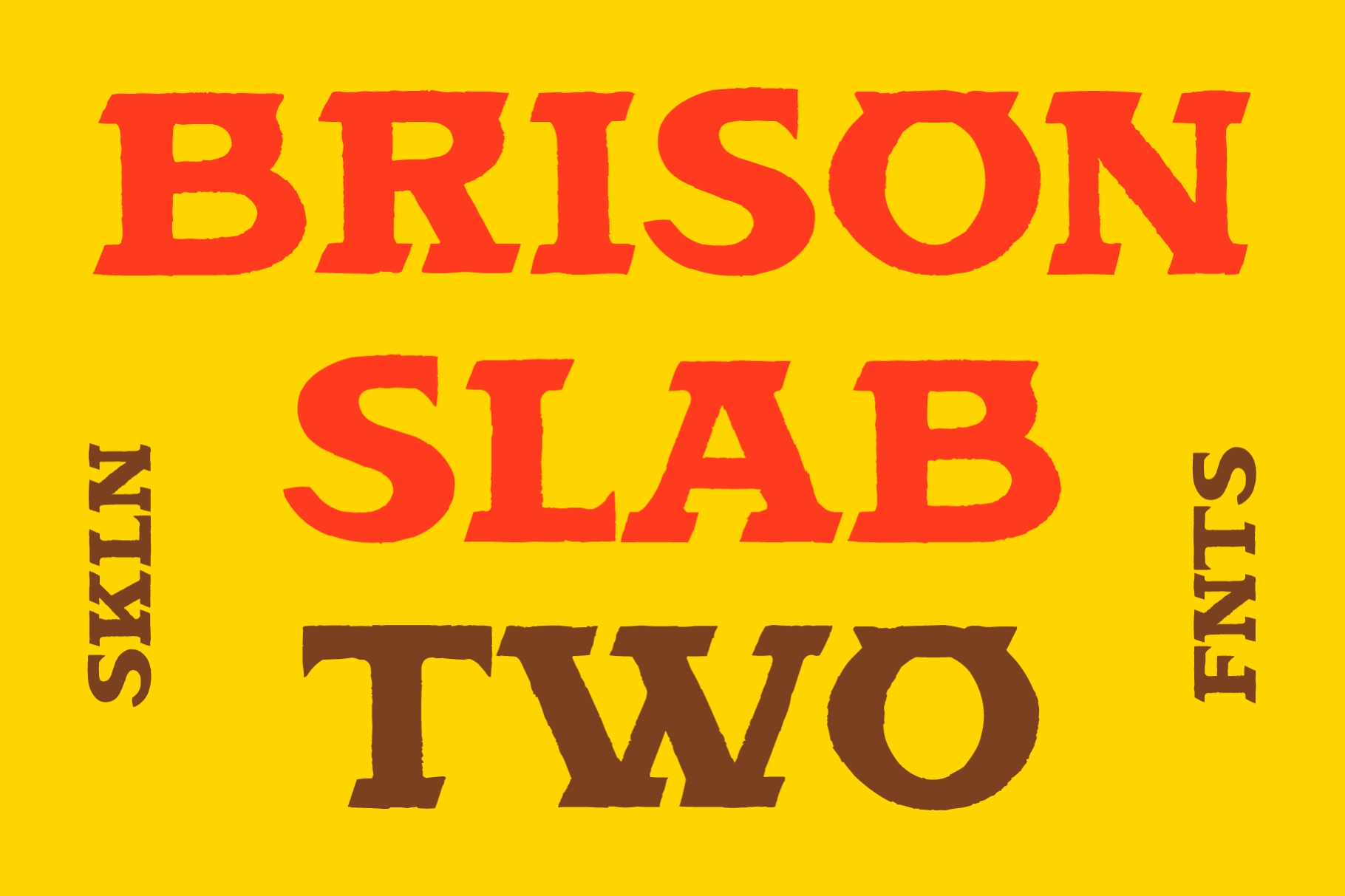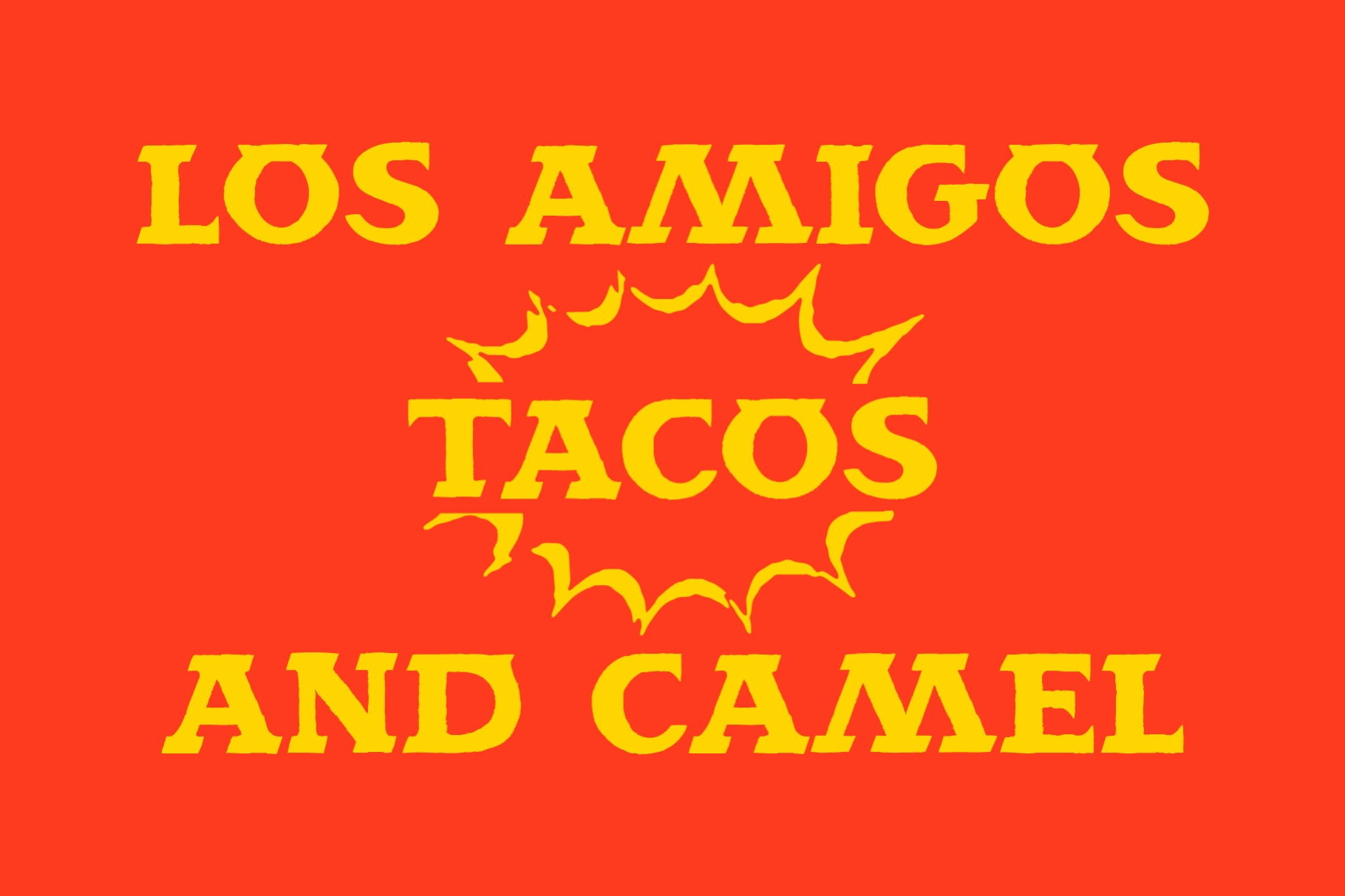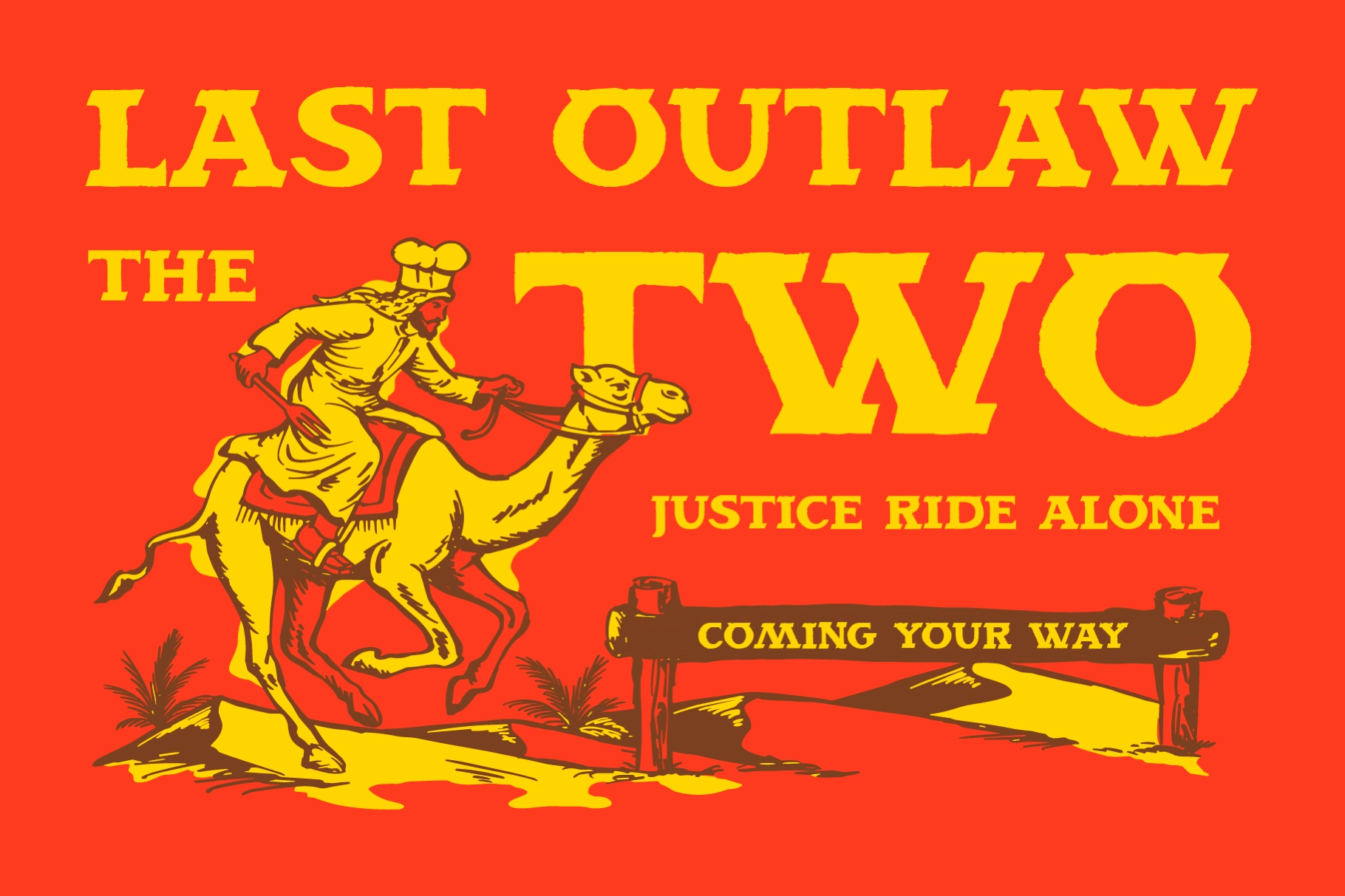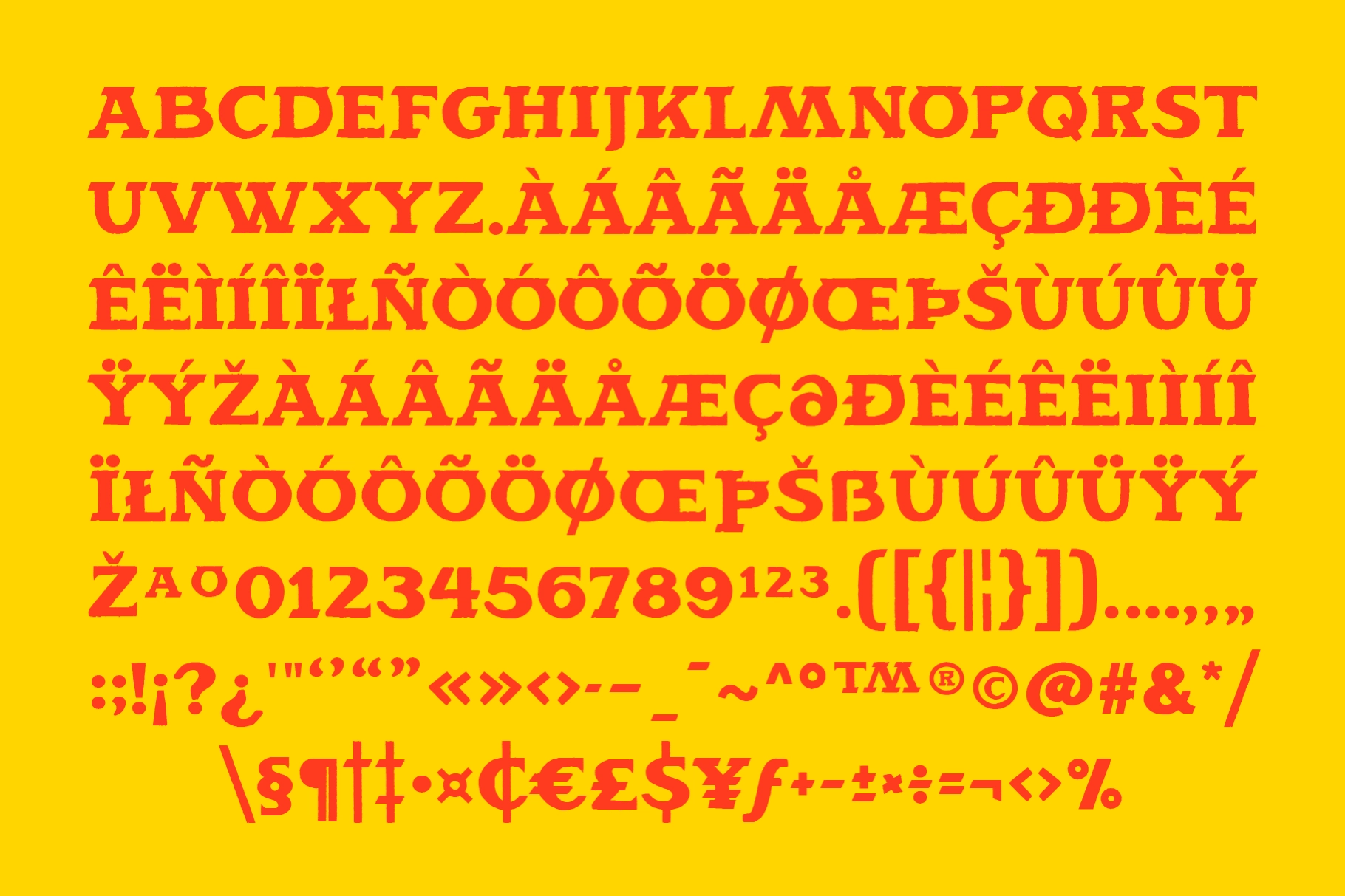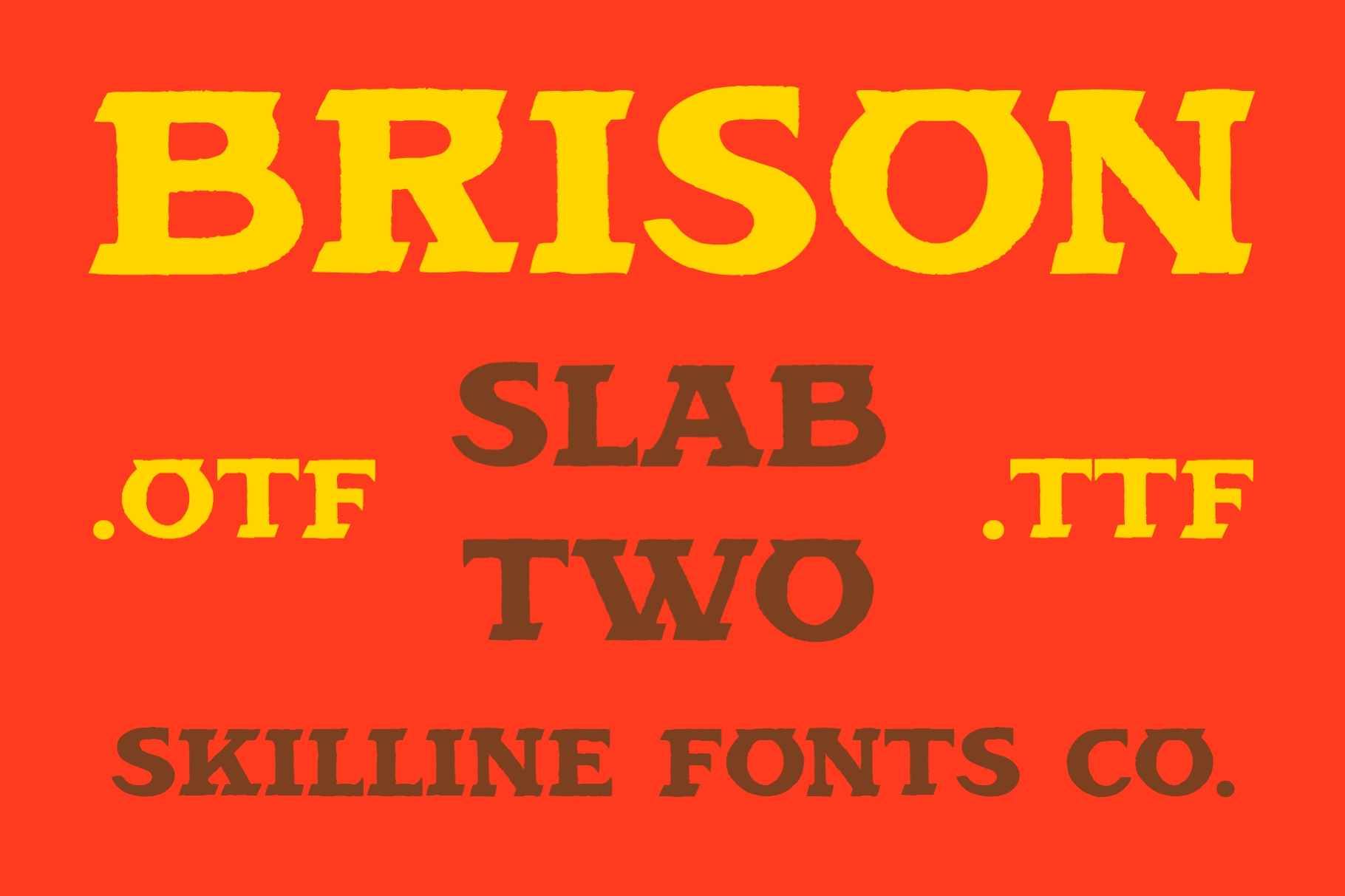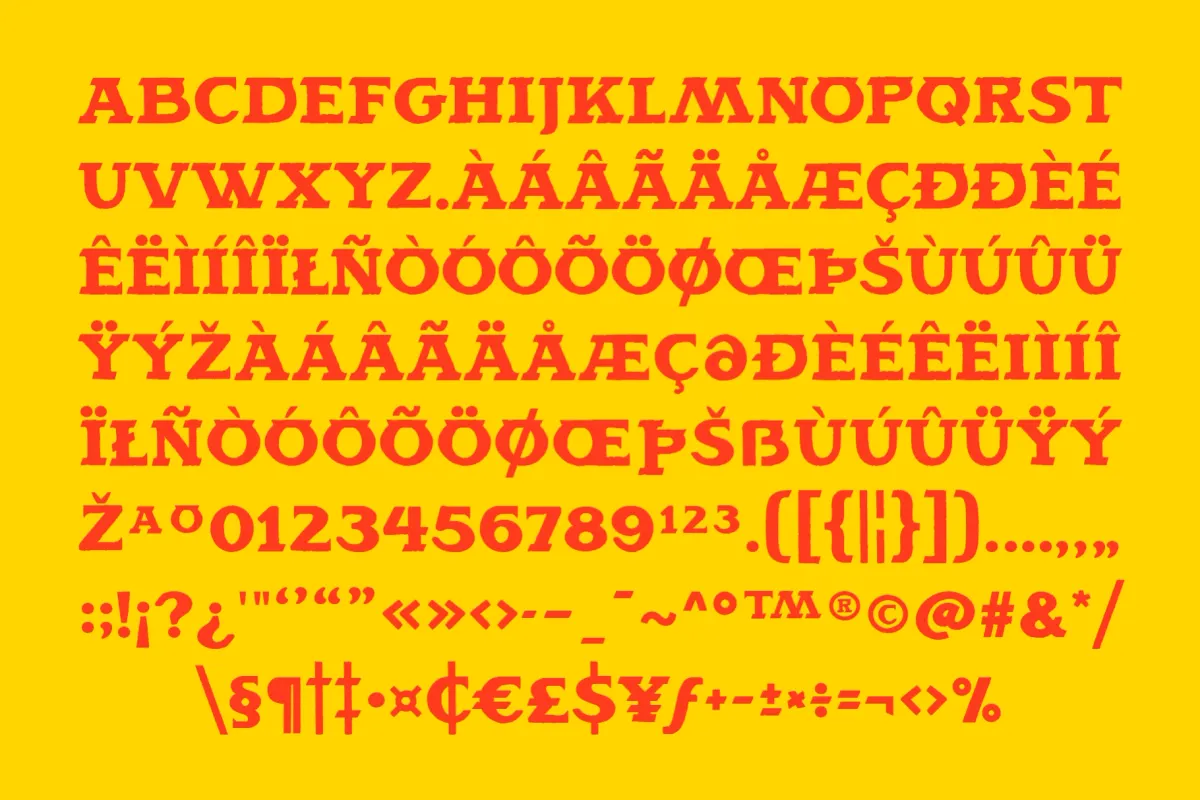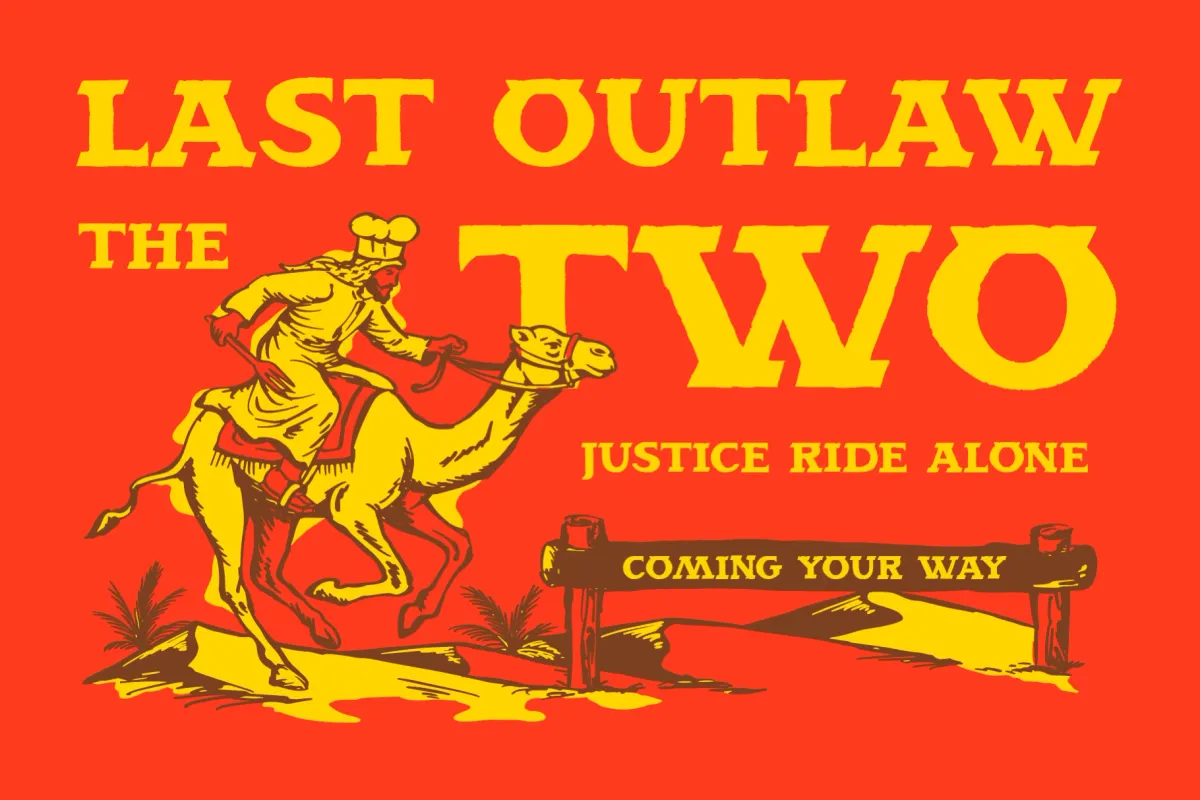
SFC Brison Slab Two - Desert Western Font
This retro slab serif typeface has chunky letterforms, squared serifs, and roughened edges that bring a dusty saloon-poster attitude to every headline .
Brison Slab Two is ideal for smokehouse branding, taco shop signage, ranch logos, western posters, food packaging, rodeo flyers, hot sauce labels, diner menus, brewery graphics, festival merch, sticker packs, album covers, desert-themed campaigns, and more. The handcrafted finish gives large typography a worn, character-rich look without making the message work too hard.
• Handcrafted Display Typeface
• Western Inspired Style
• Numerals & Punctuation